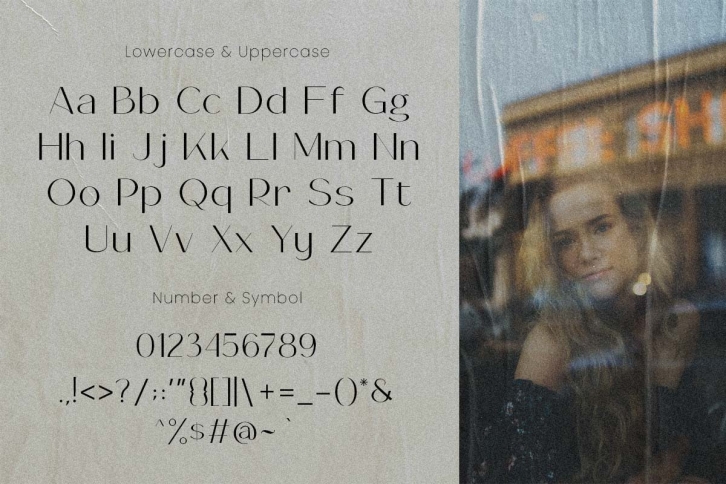
Introducing our new font Svargé A Modern Elegant Sans Serif Font
Svargé is a Modern Elegant Classic font with beautiful shape on each character, come with special alternative glyphs, and has multilingual support. Svargé it's a very versatile font that works great in large and small sizes with any background colors. Svargé is perfect for Magazine Headlines, Branding Projects, Logo design, Clothing & Fashion Branding, and Product Packaging.